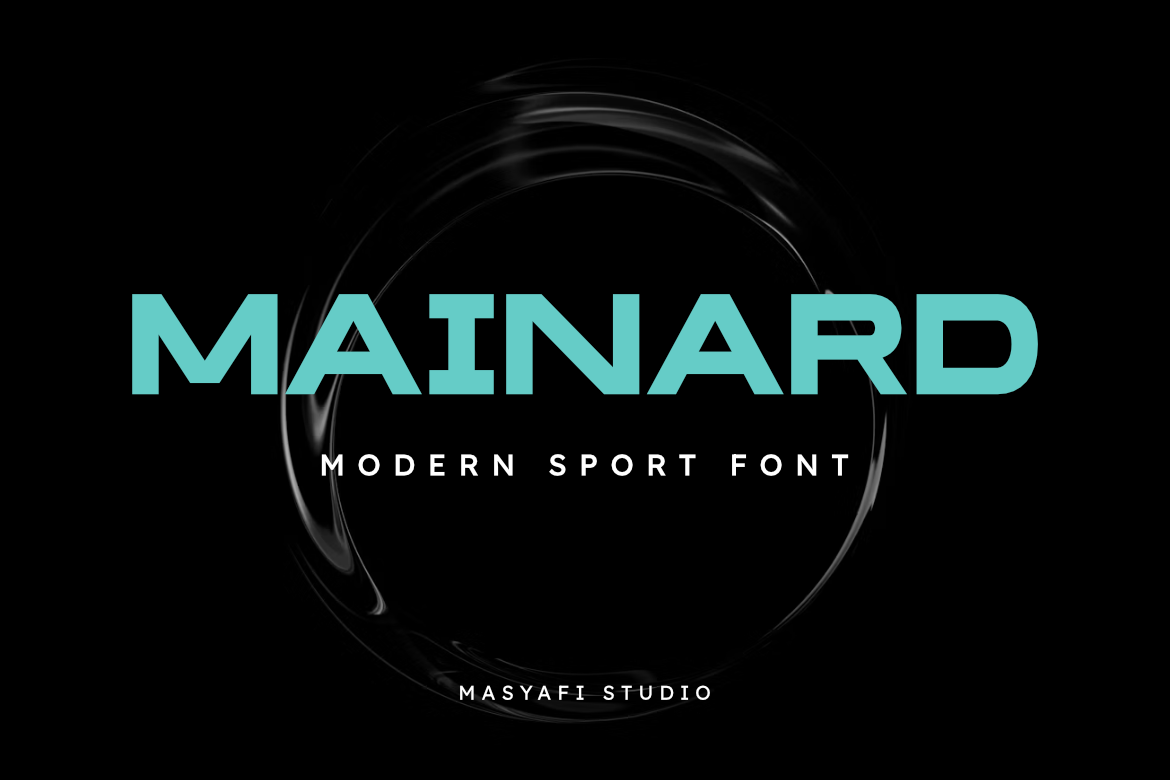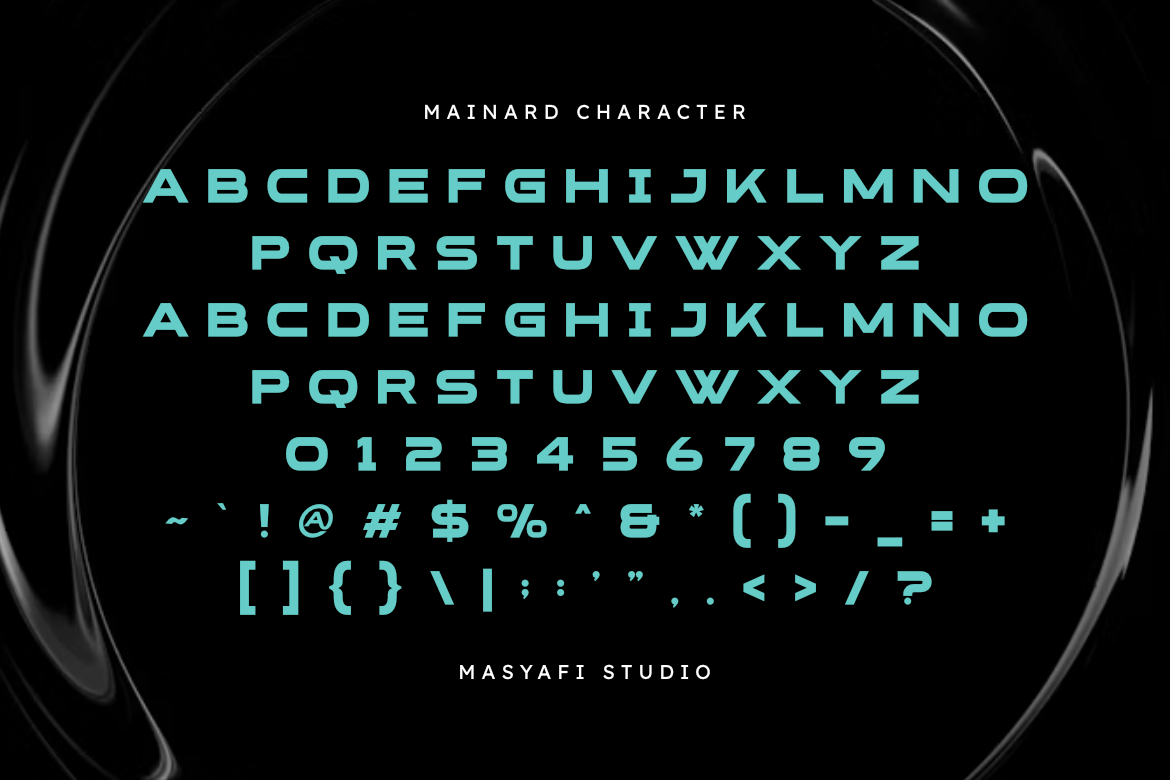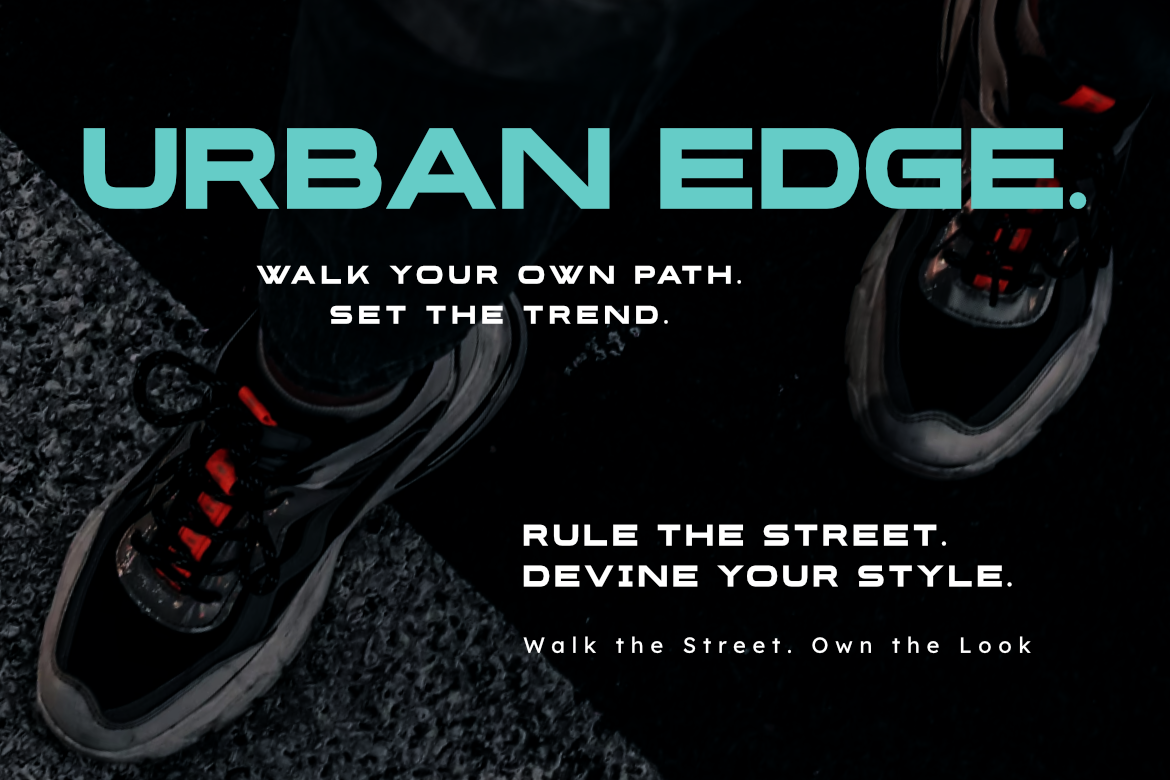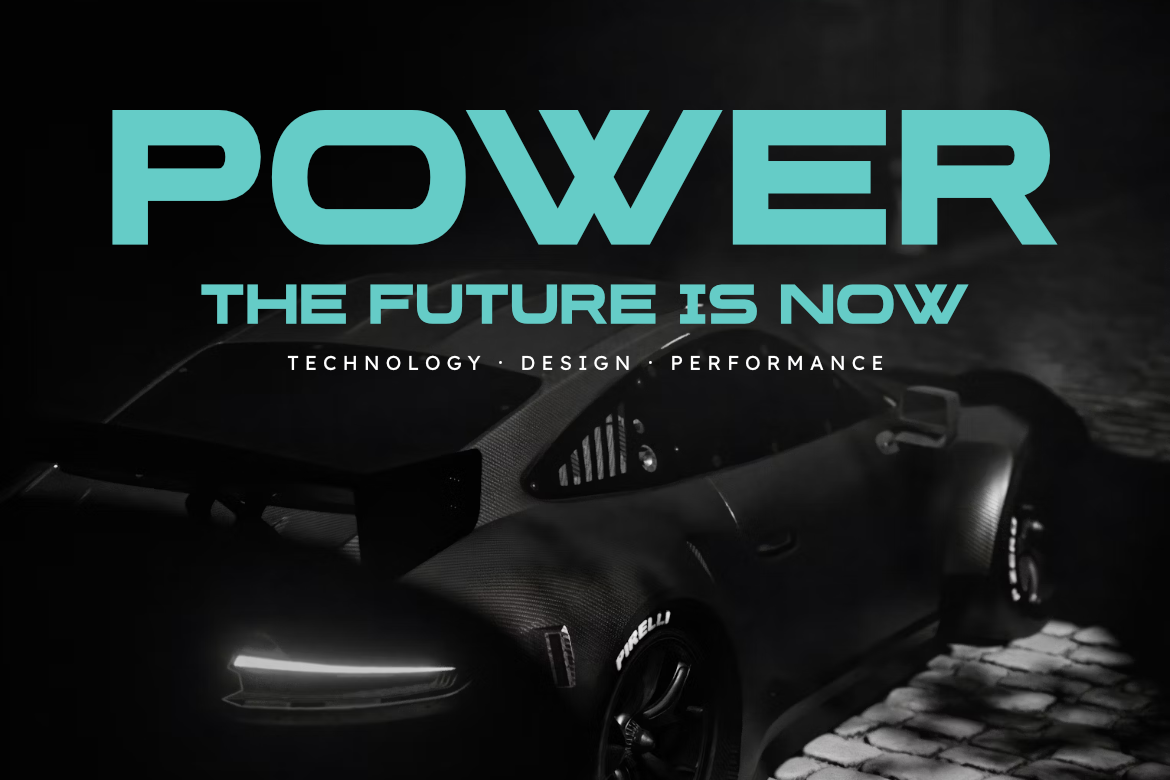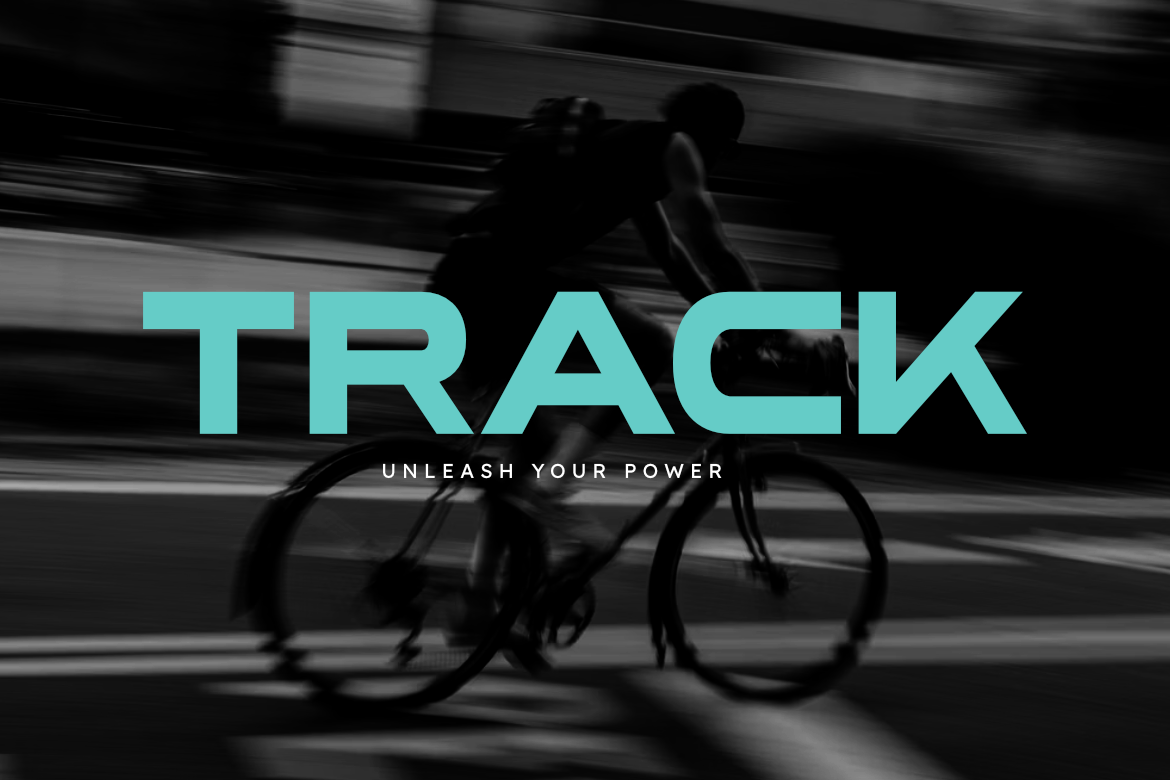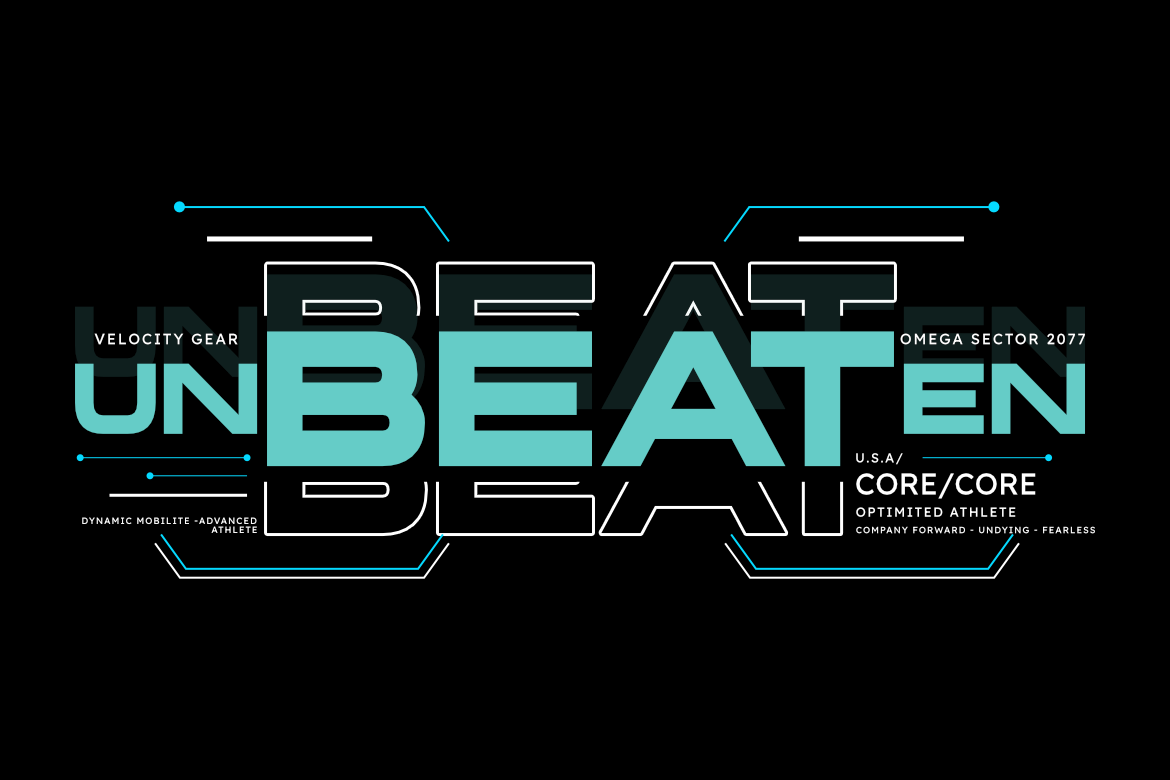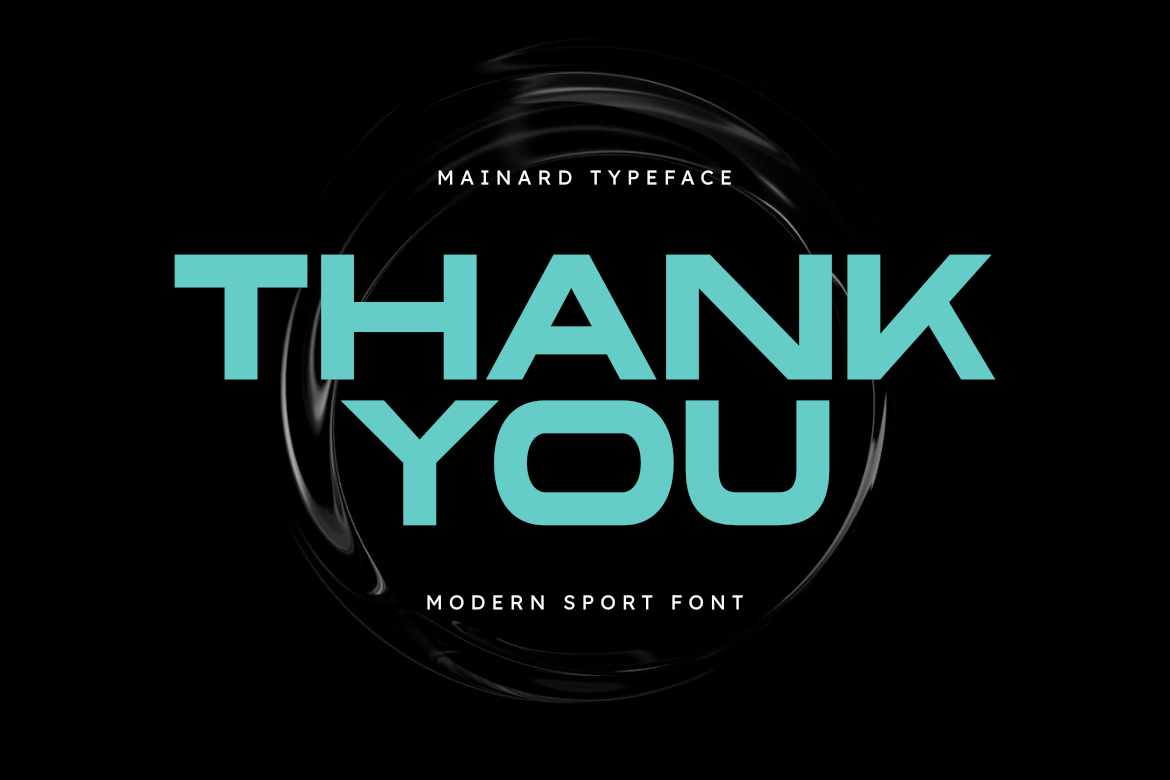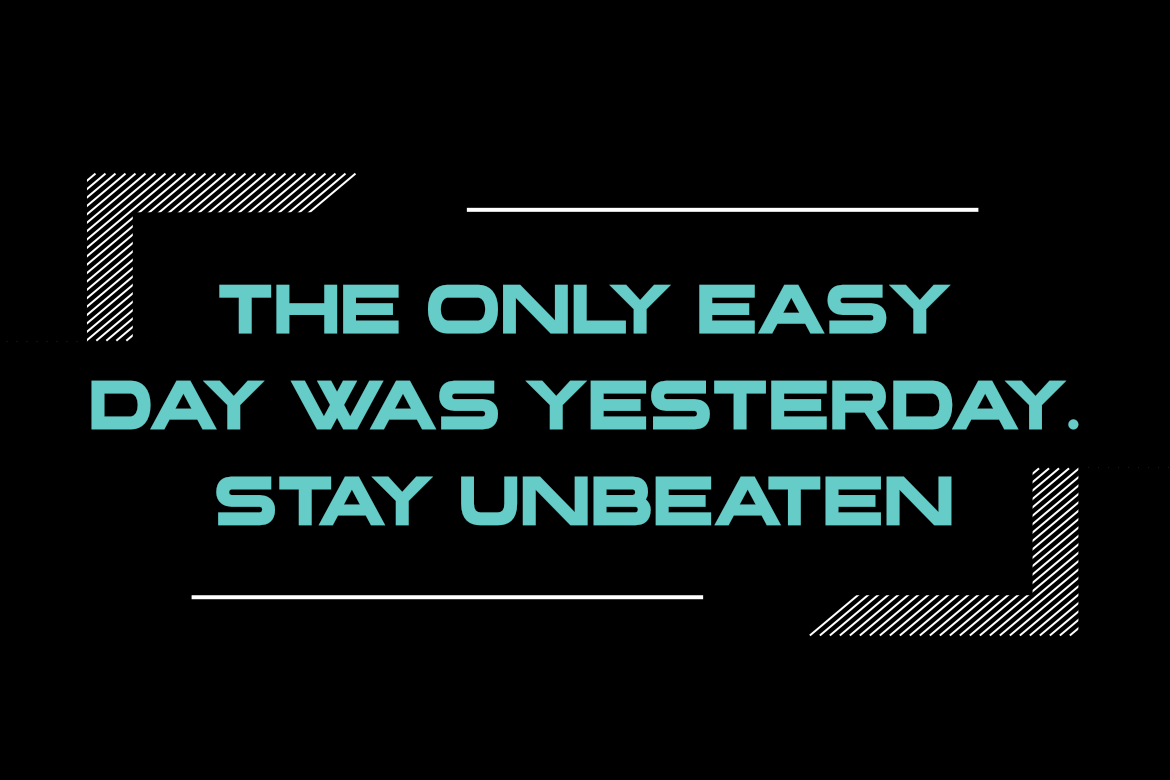
Mainard - Modern Sport Font For Brand Identity
Introducing Mainard — a bold and powerful Modern Sport Font built for performance and precision. With its strong geometric structure and confident letterforms, Mainard embodies energy, motion, and competitive spirit — making it the perfect choice for sports branding, activewear, and modern digital designs.
Designed to stand out on jerseys, posters, and promotional visuals, Mainard delivers impact and readability in every setting. Its clean lines and balanced proportions bring a professional yet dynamic look that enhances the strength of your brand identity.
Bring the adrenaline of modern sports to your design with Mainard — where strength meets style.
Features
- Uppercase Letters
- Numbers & Punctuation
- Strong Geometric Design
- Bold and Modern Look
Perfect For
- Sports Team Branding
- Athletic Apparel Logos
- Gym & Fitness Promotions
- Esports Titles & Gaming Logos
- Event Posters & Flyers
- Modern Advertisements